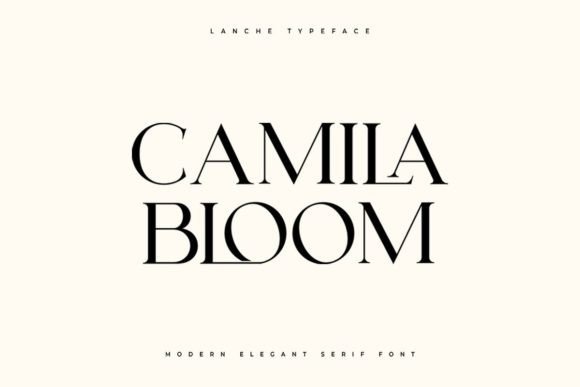
Lanche Font: Elevate Your Designs with Luxury and Elegance
In the world of typography, fonts play a crucial role in conveying the tone and personality of a design. Among the numerous fonts available, Lanche Font stands out as a modern, elegant, and stylish serif font that can instantly add a touch of luxury to your creations. In this article, we’ll explore the features and benefits of Lanche Font, and how it can elevate your designs to new heights.
What is Lanche Font?
Lanche Font is a sophisticated serif font designed to bring a sense of refinement and elegance to your designs. Its modern and stylish aesthetic makes it perfect for a wide range of applications, from branding and advertising to packaging and publishing. With its clean lines, precise curves, and balanced proportions, Lanche Font exudes a sense of luxury and sophistication that is sure to captivate your audience.
Key Features of Lanche Font
- Modern and Elegant Design: Lanche Font boasts a sleek and contemporary design that is perfect for creating stunning visual effects.
- Serif Font: The font features elegant serifs that add a touch of sophistication and refinement to your designs.
Benefits of Using Lanche Font
So, why choose Lanche Font for your designs? Here are just a few benefits of using this exceptional font:
- Adds Luxury and Elegance: Lanche Font instantly adds a touch of luxury and sophistication to your designs, making them stand out from the crowd.
- Versatile: The font is suitable for a wide range of applications, from branding and advertising to packaging and publishing.
- High-Quality: The font is designed to deliver exceptional results, with clean lines, precise curves, and balanced proportions.
How to Use Lanche Font in Your Designs
Using Lanche Font in your designs is straightforward and easy. Here are a few tips to get you started:
- Pair it with Other Fonts: Lanche Font works well with other fonts, so feel free to experiment with different combinations to create unique visual effects.
- Experiment with Font Sizes: The font looks great in various sizes, from large headings to smaller body text.
- Play with Colors: Lanche Font comes in a range of colors, so don’t be afraid to experiment with different hues and shades to find the perfect match for your design.
In conclusion, Lanche Font is an exceptional serif font that can elevate your designs to new heights. Its modern, elegant, and stylish aesthetic makes it perfect for creating stunning visual effects, while its PUA encoding and multilingual support make it easy to use and integrate into your designs. Whether you’re a designer, artist, or simply someone looking to add a touch of luxury to your creations, Lanche Font is an excellent choice.
Why Choose Lanche Font?